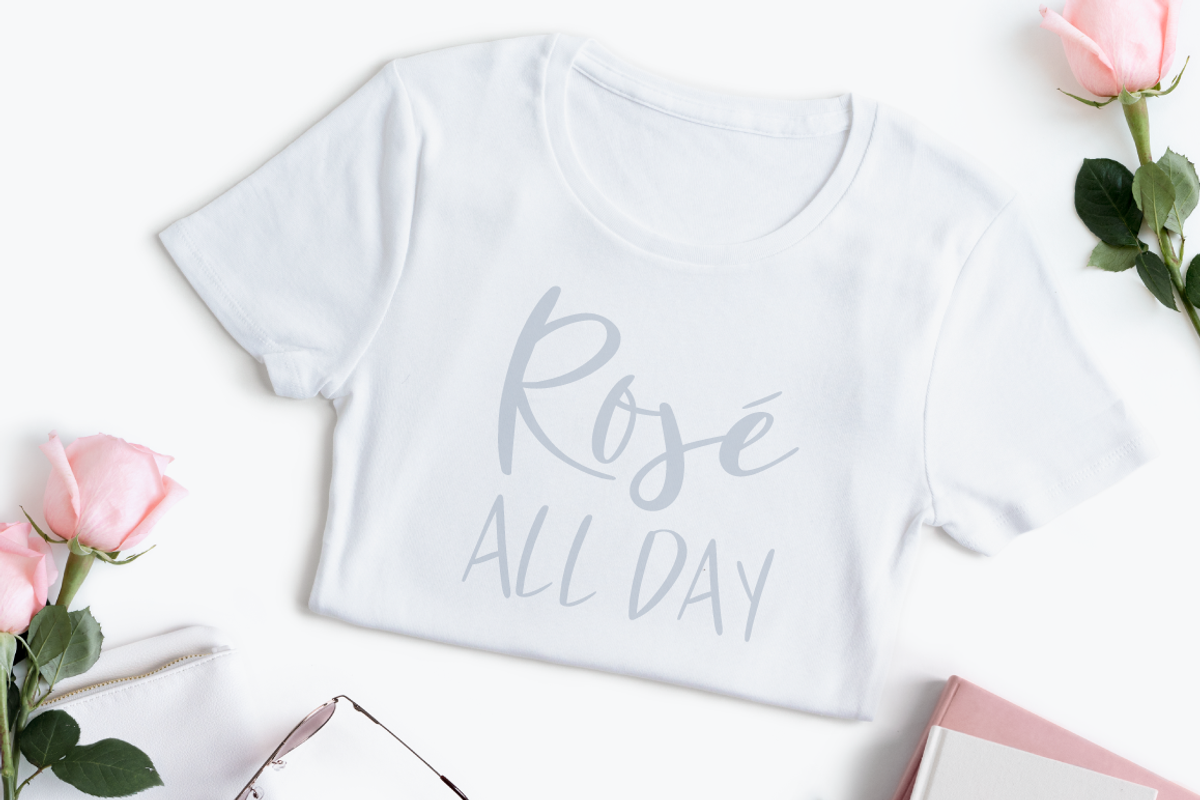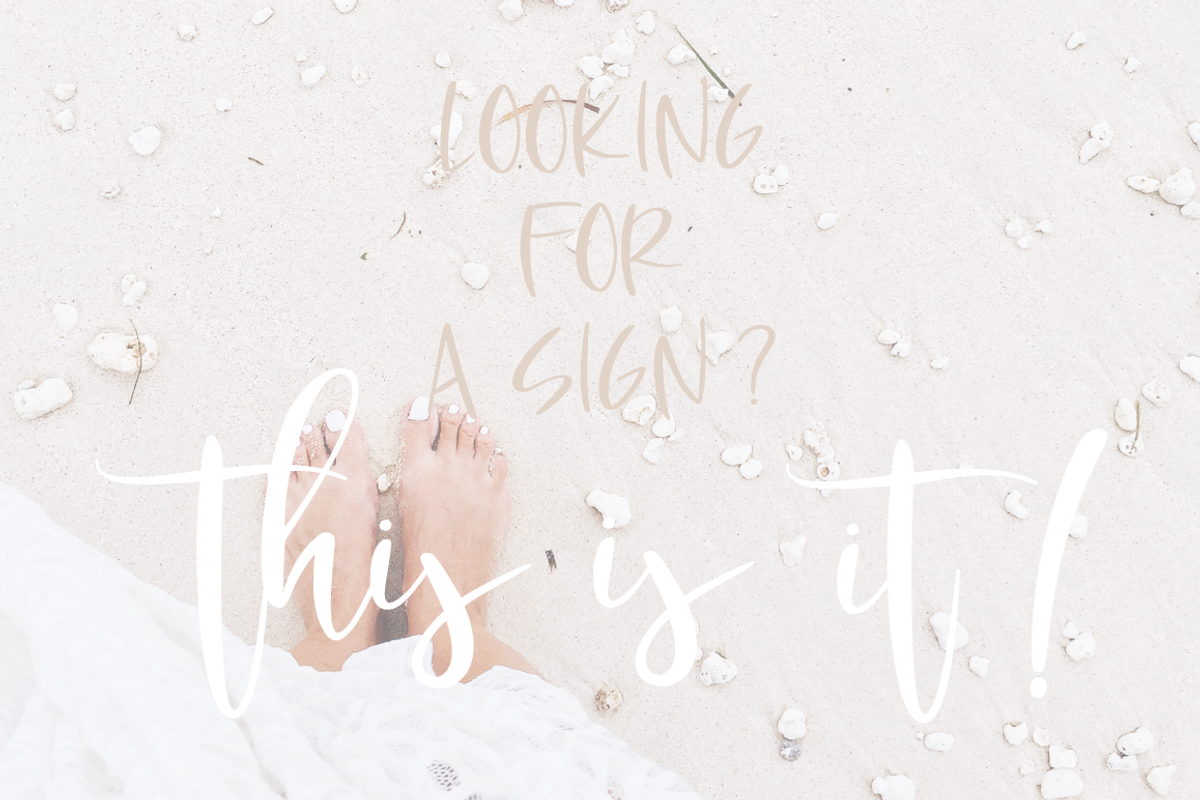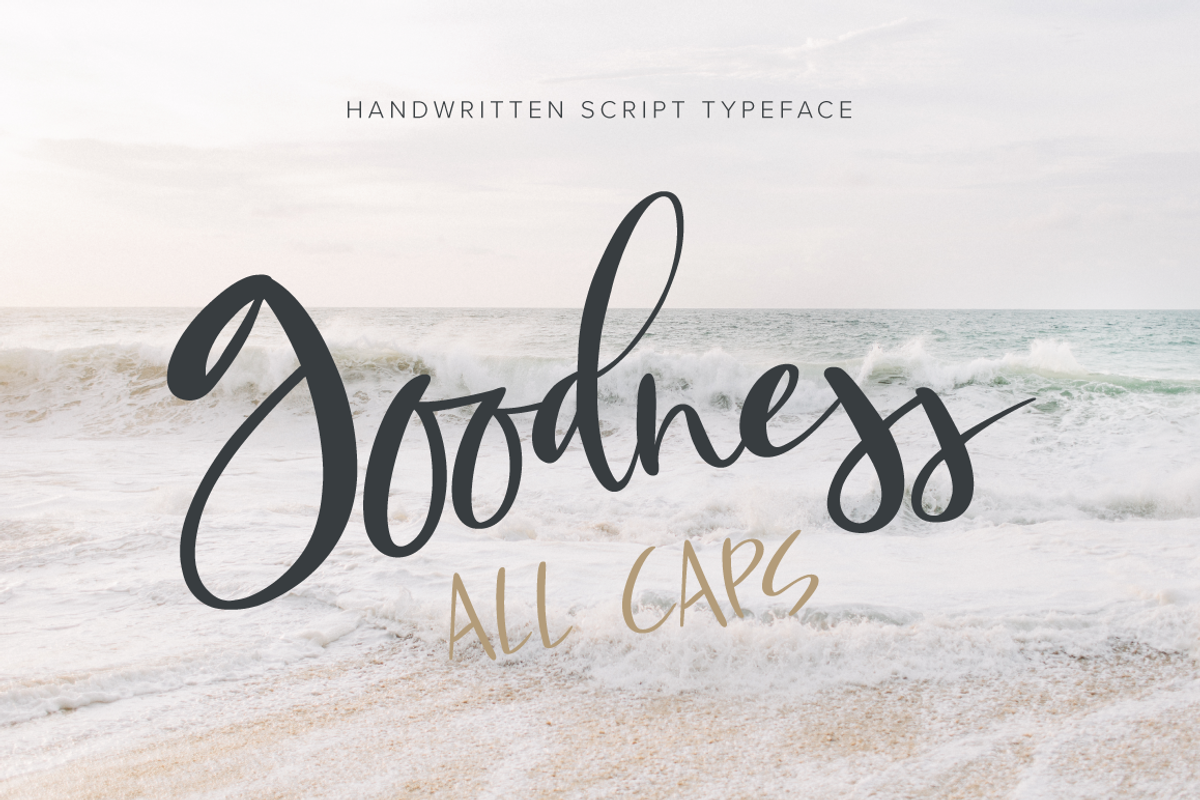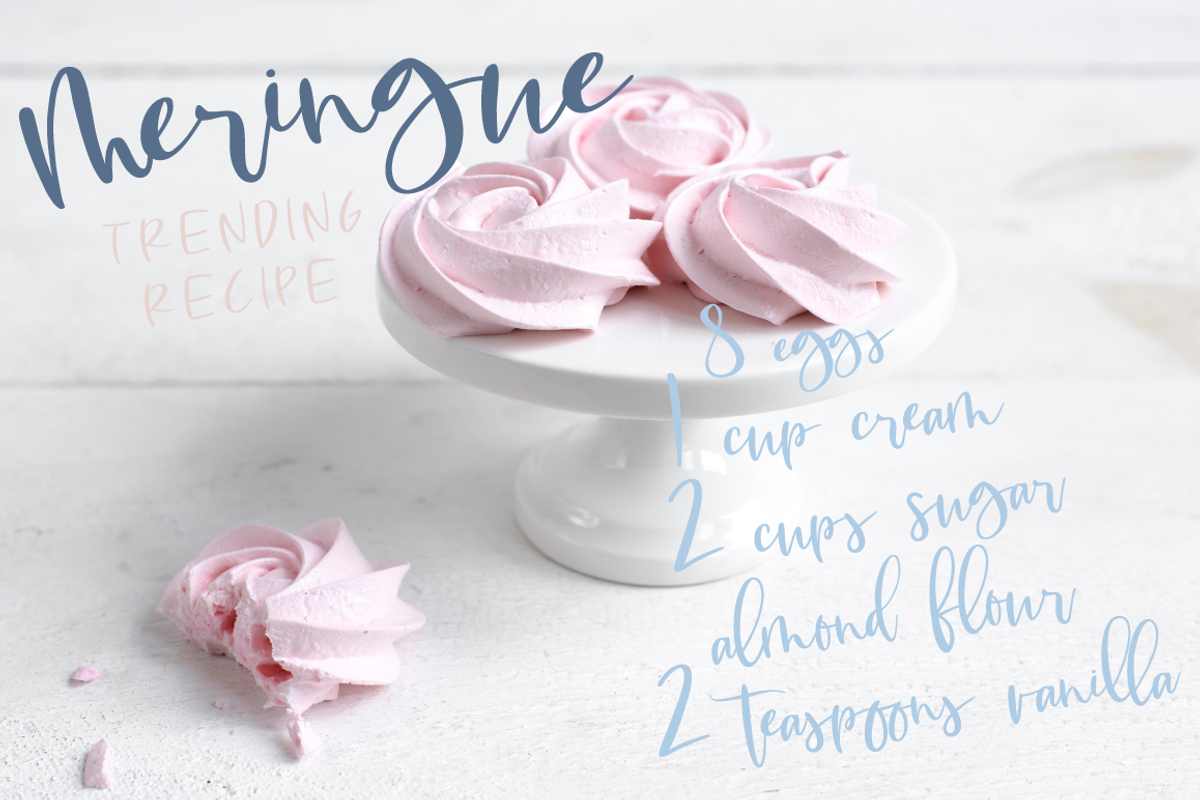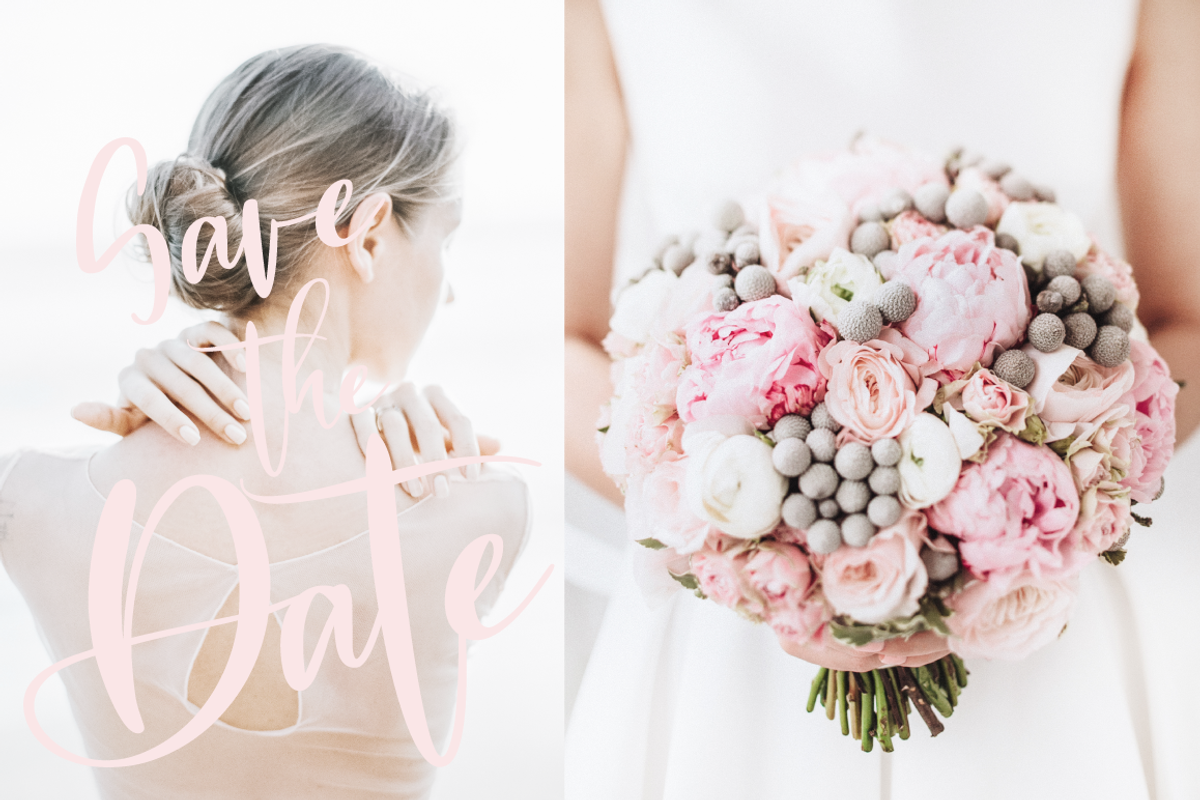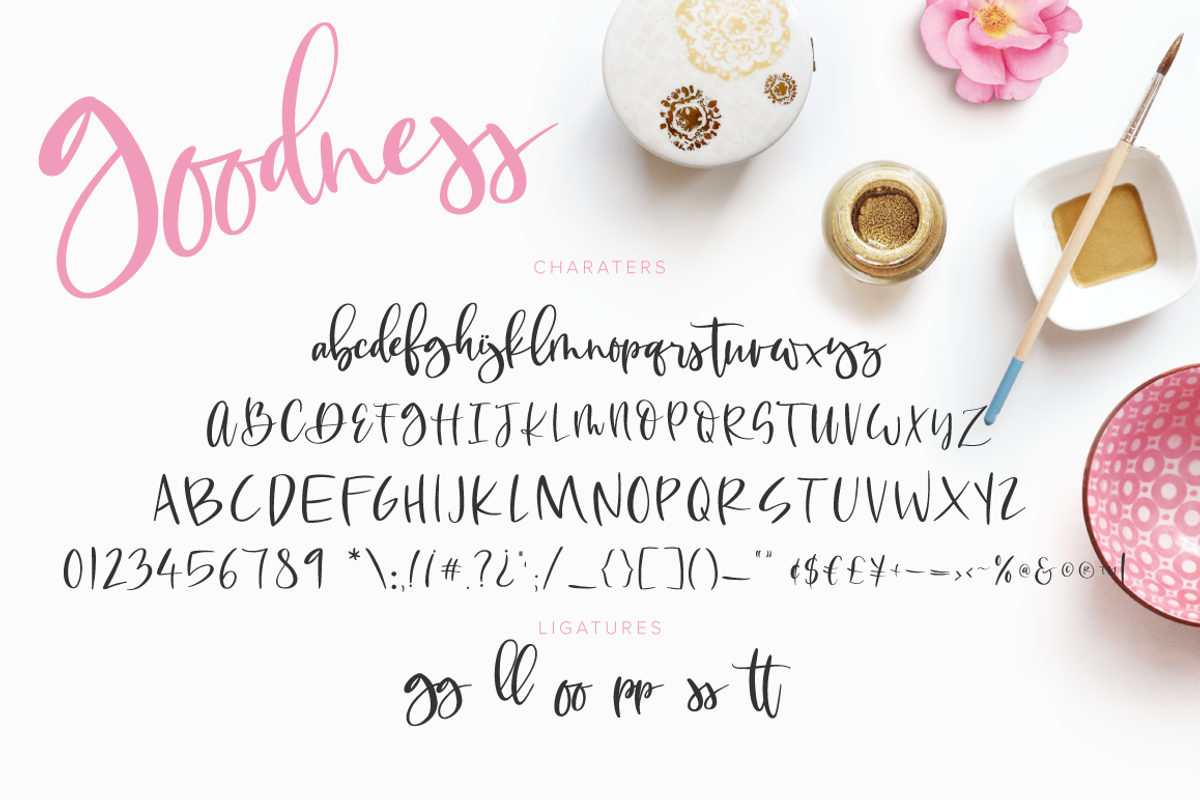
Goodness Script Font
Introducing Goodness, handwritten typeface paired with a sans serif all caps version.
Goodness is a modern, romantic, bouncy handwritten script font that is gorgeous for logos, headers, magazine layouts, invitations, headers, handwritten quotes and craft projects.
Goodness Script Font by Stjarna fits naturally into Branding, posters, packaging, typography.